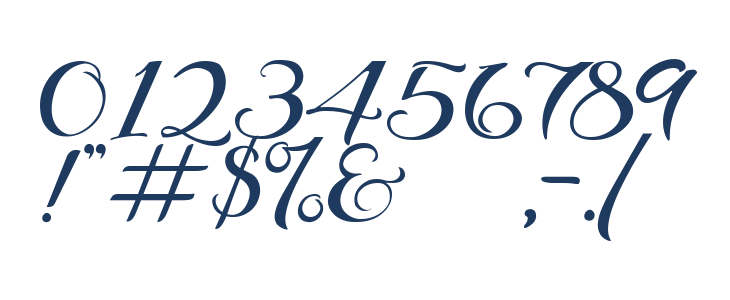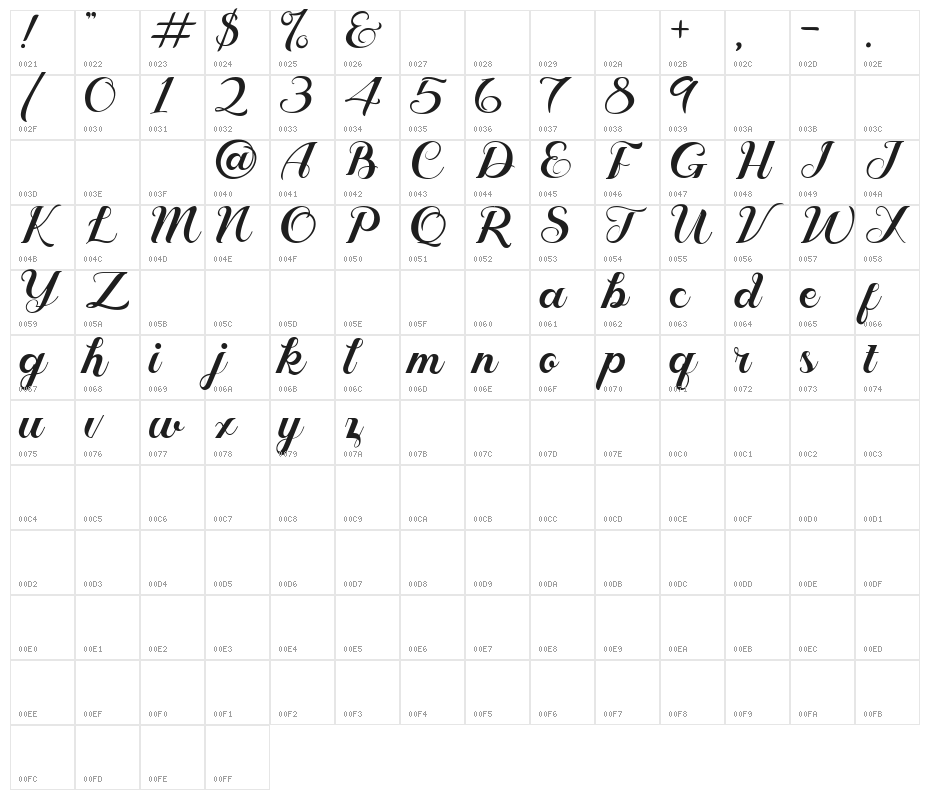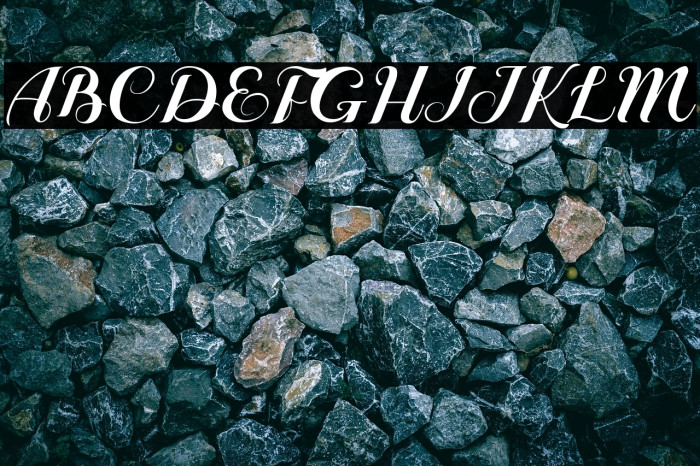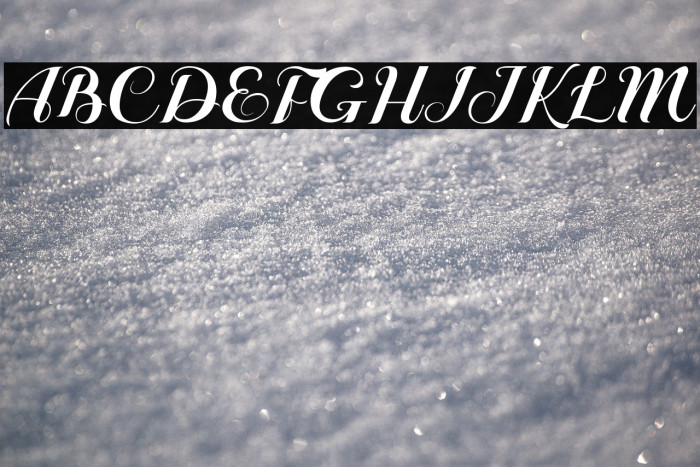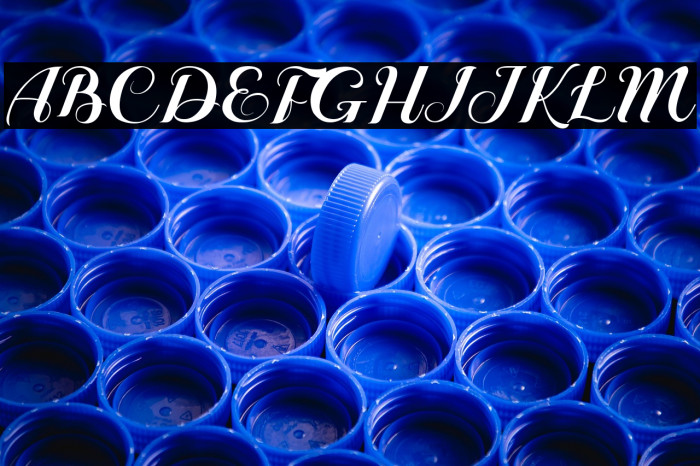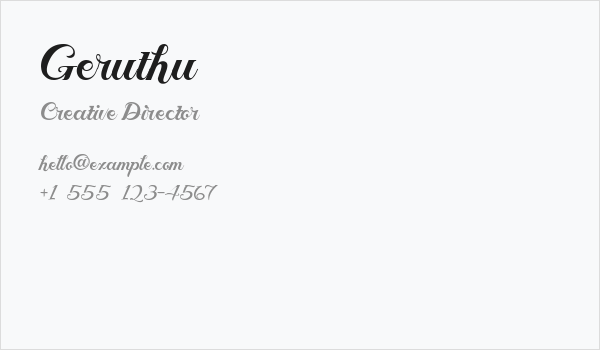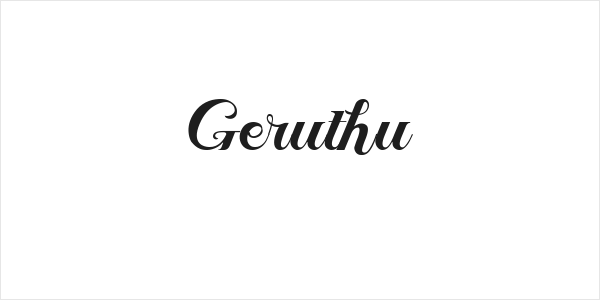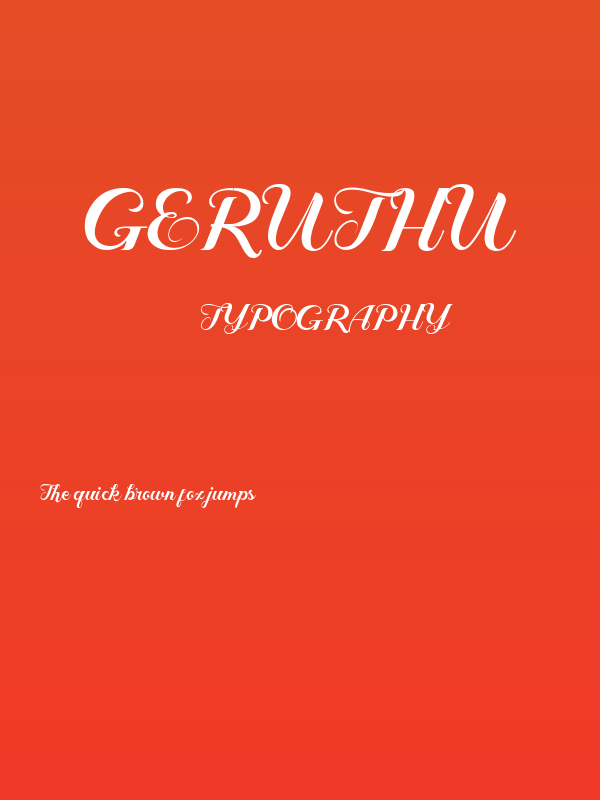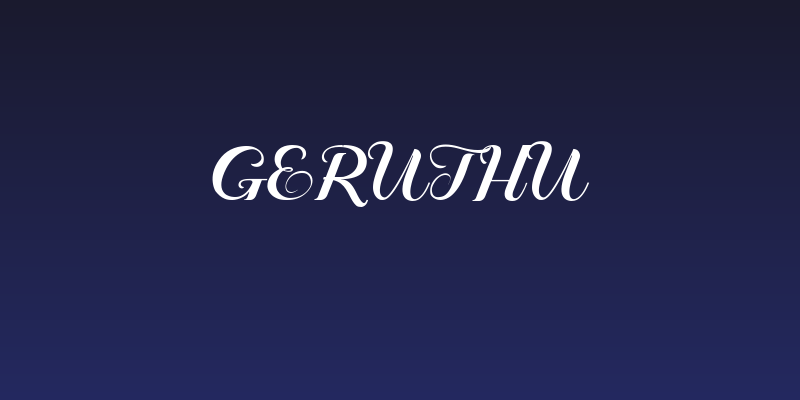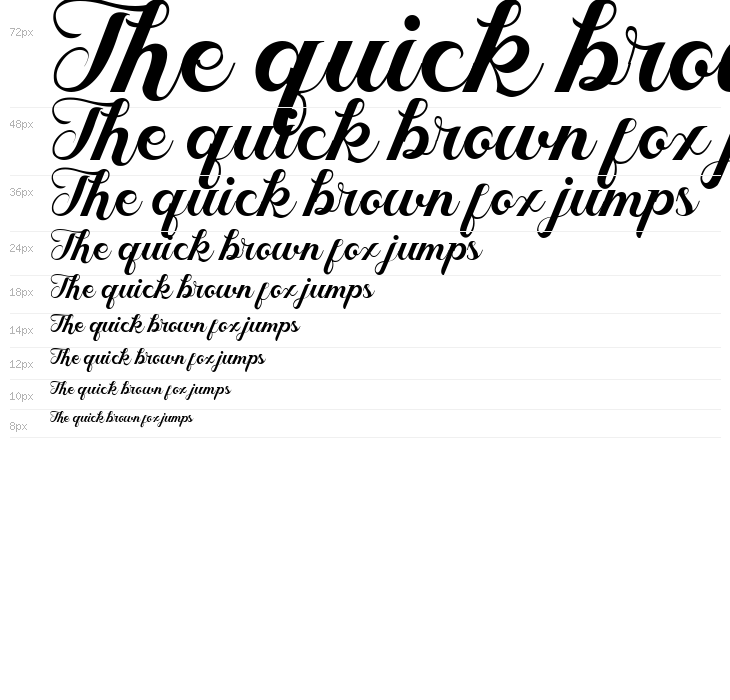
Geruthu Font
Geruthu Description
This elegant script font features a flowing, cursive style with high contrast between thick and thin strokes. The uppercase letters are ornate, with sweeping curves and flourishes that give a sense of sophistication and grace. The lowercase letters maintain a consistent style, with smooth connections between characters, enhancing readability while retaining an artistic flair. The numerals and special characters are designed to match the overall aesthetic, making this font suitable for a variety of decorative purposes.